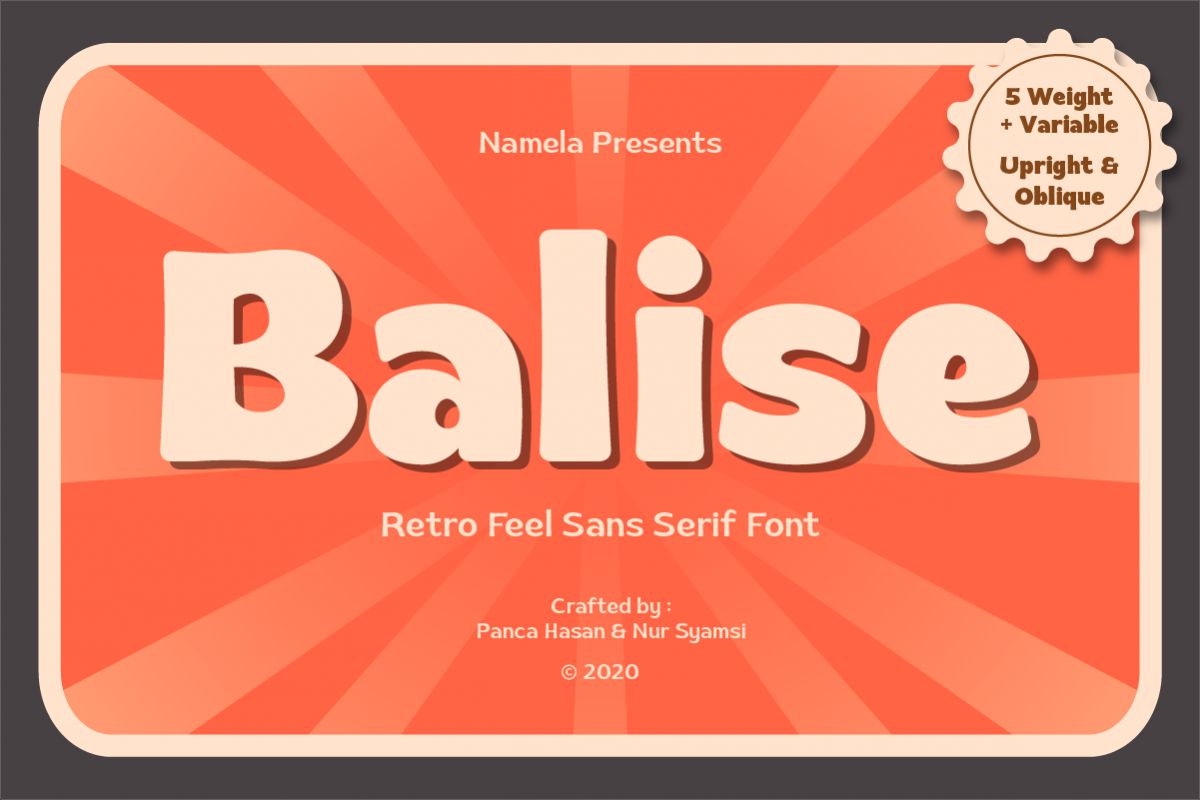
Balise Regular
Balise Font - A Retro Sans Typeface for Apps & Server Nostalgia is one of the most powerful forces in visual design—and when handled with precision, it doesn’t just recall the past, it enriches the present. Balise is a retro font that captures this balance beautifully. Balise Retro Sans Font draws from the bold, rounded aesthetics of mid-century sans serif typography, reinterpreting them through a modern lens. The result is a typeface that feels both familiar and contemporary—warm in character